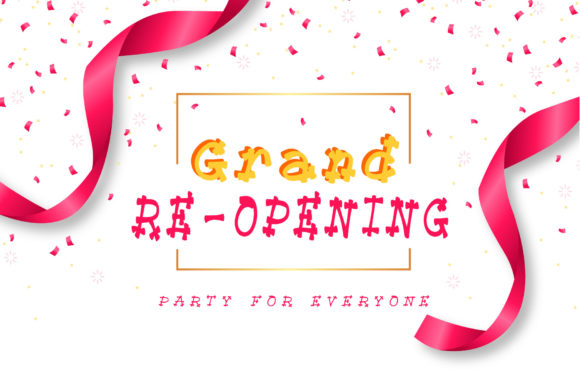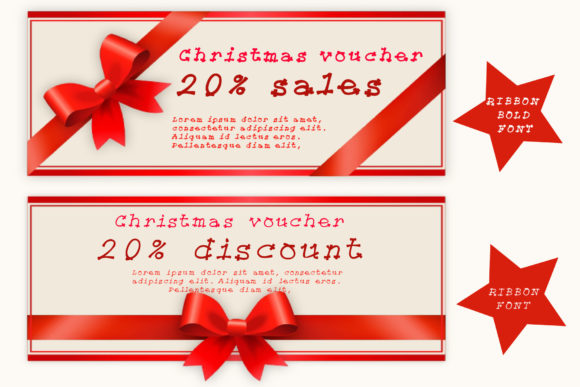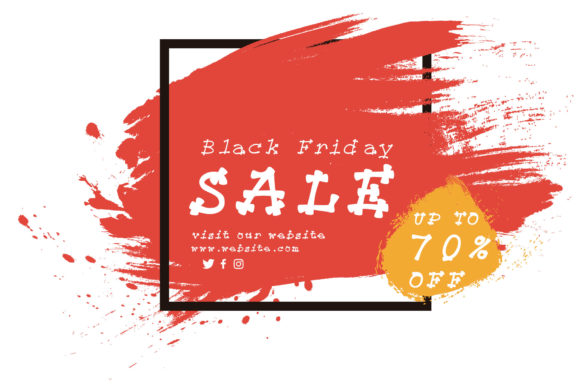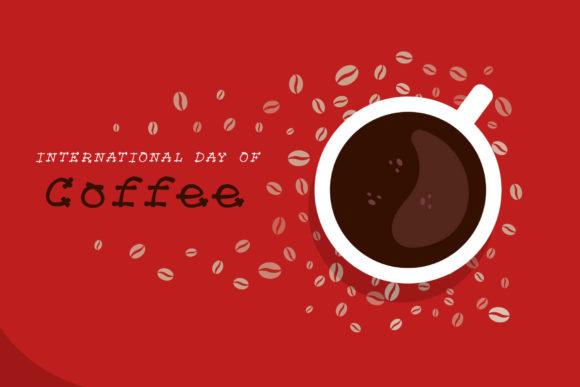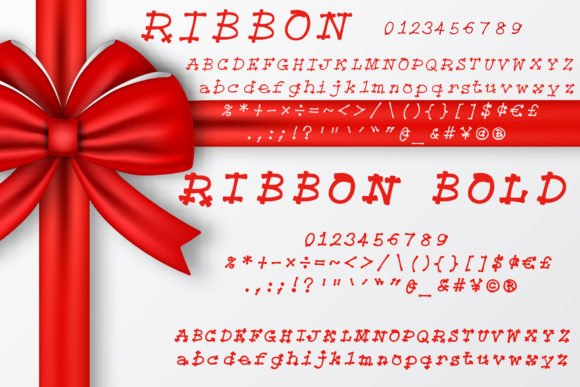
Ribbon Font
About Ribbon Font
Ribbon is a whimsical and fun handwritten font. It features a cute style and it is perfect for greeting cards, wedding invitations, logos, blogs, business cards, and more!